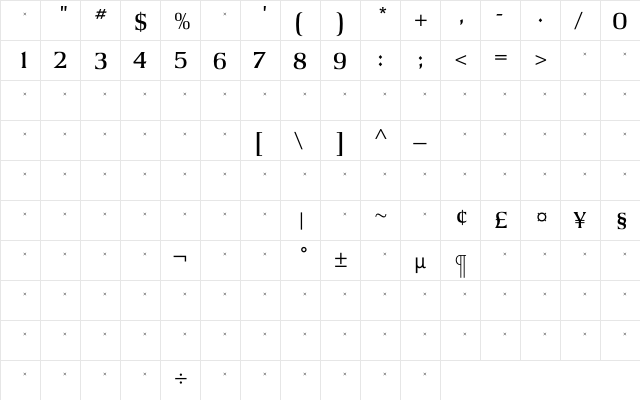
ArgusMediumTab Regular
Design Context for ArgusMediumTab Typeface
ArgusMediumTab offers clean, dependable letterforms without strong stylistic allegiance, making it a practical choice for designers who need flexibility.